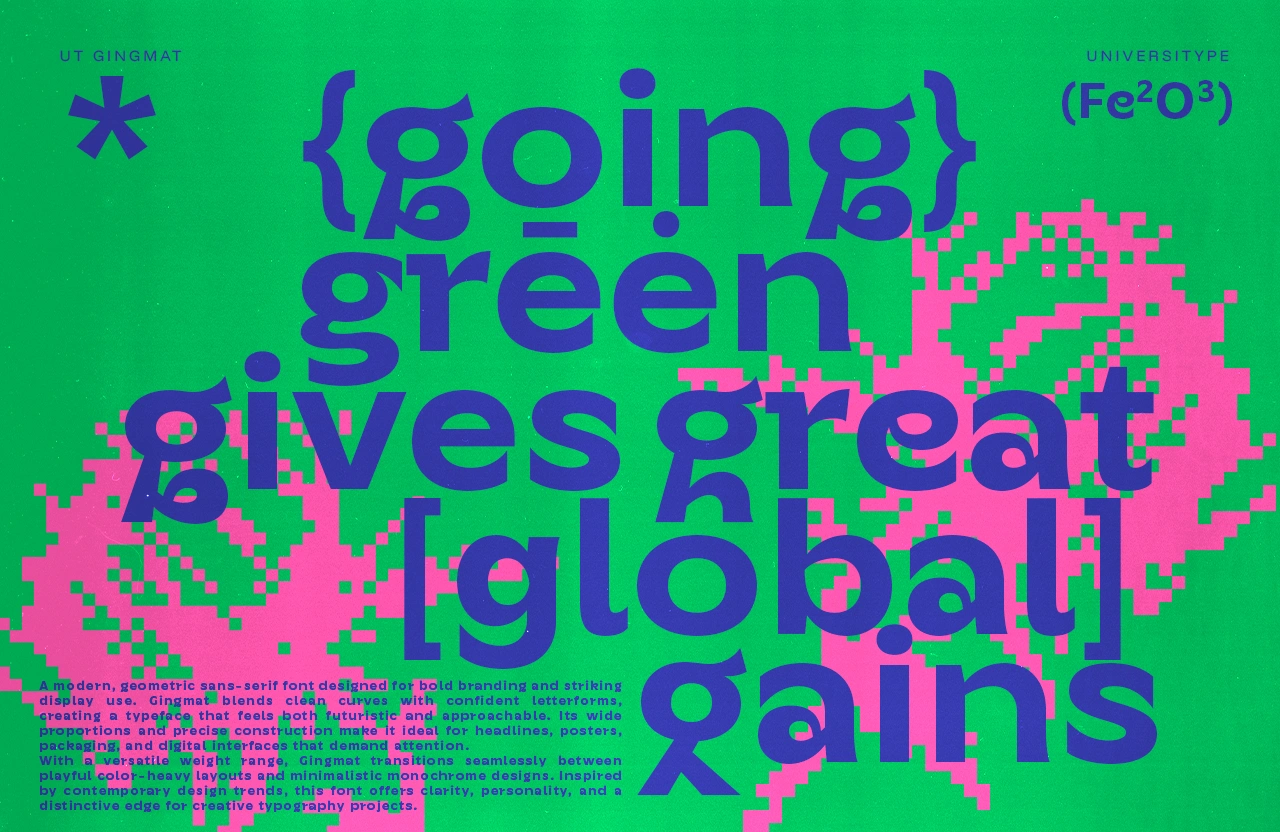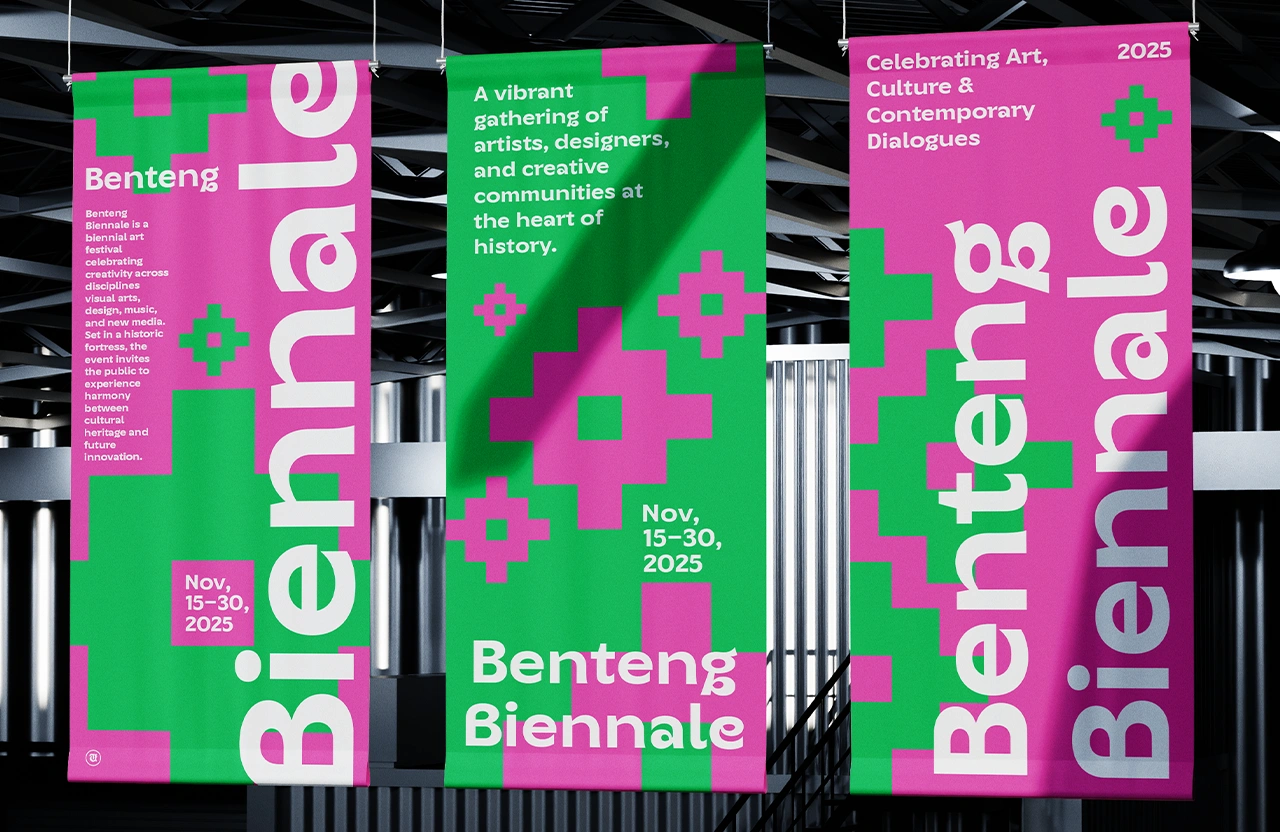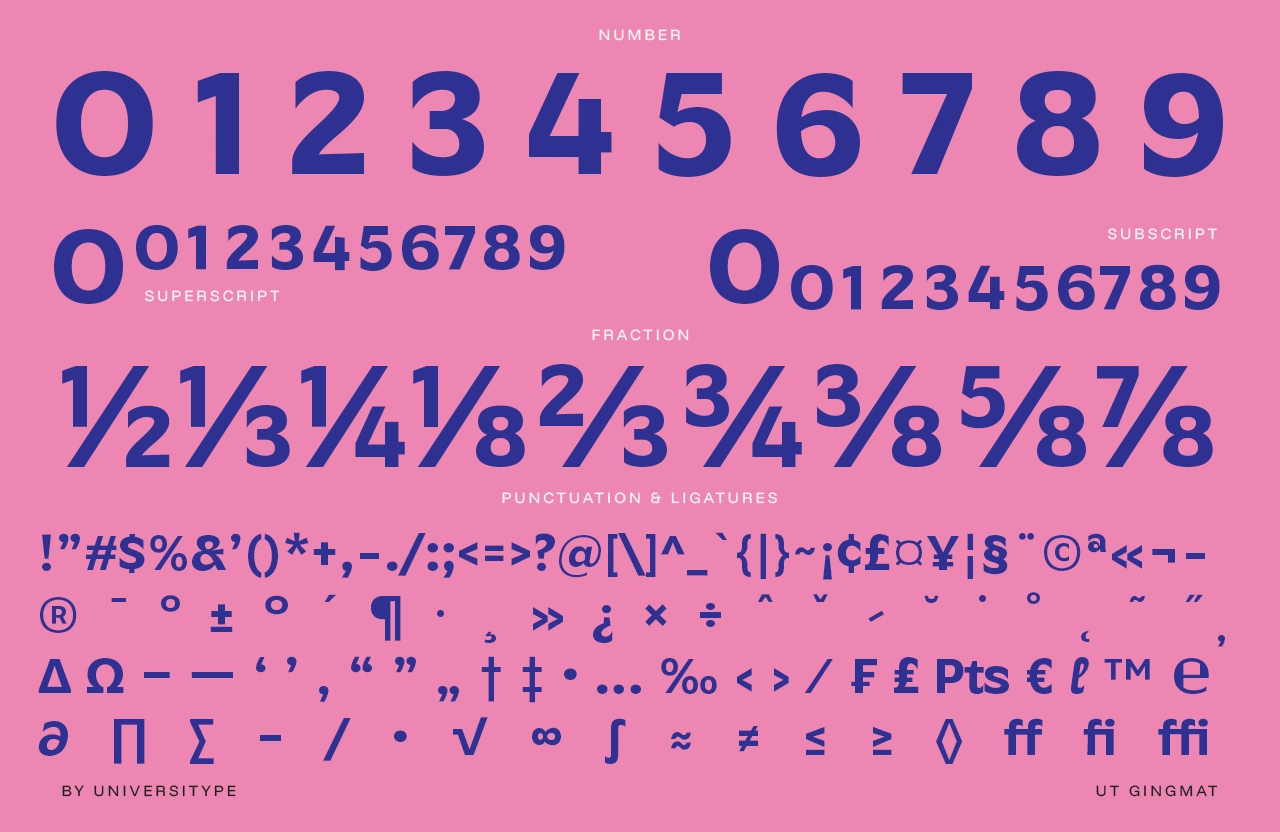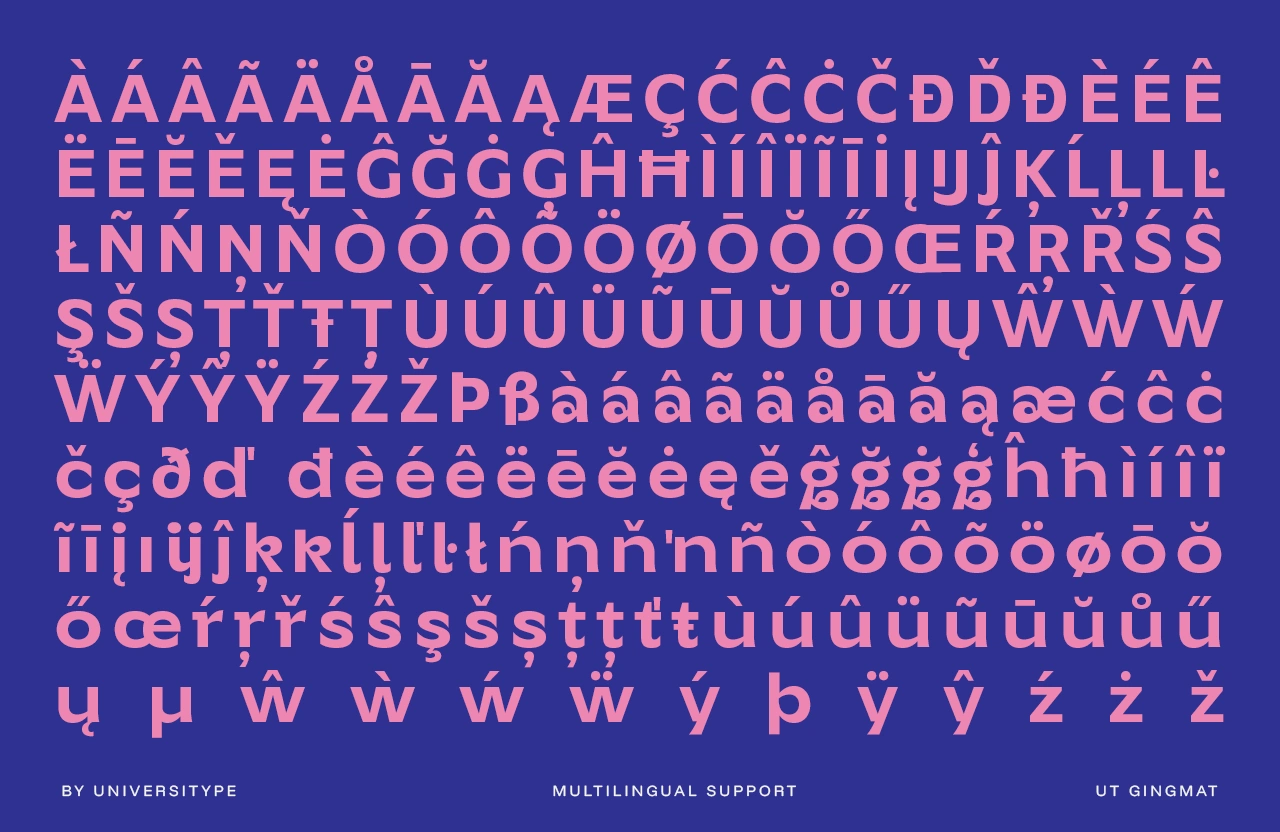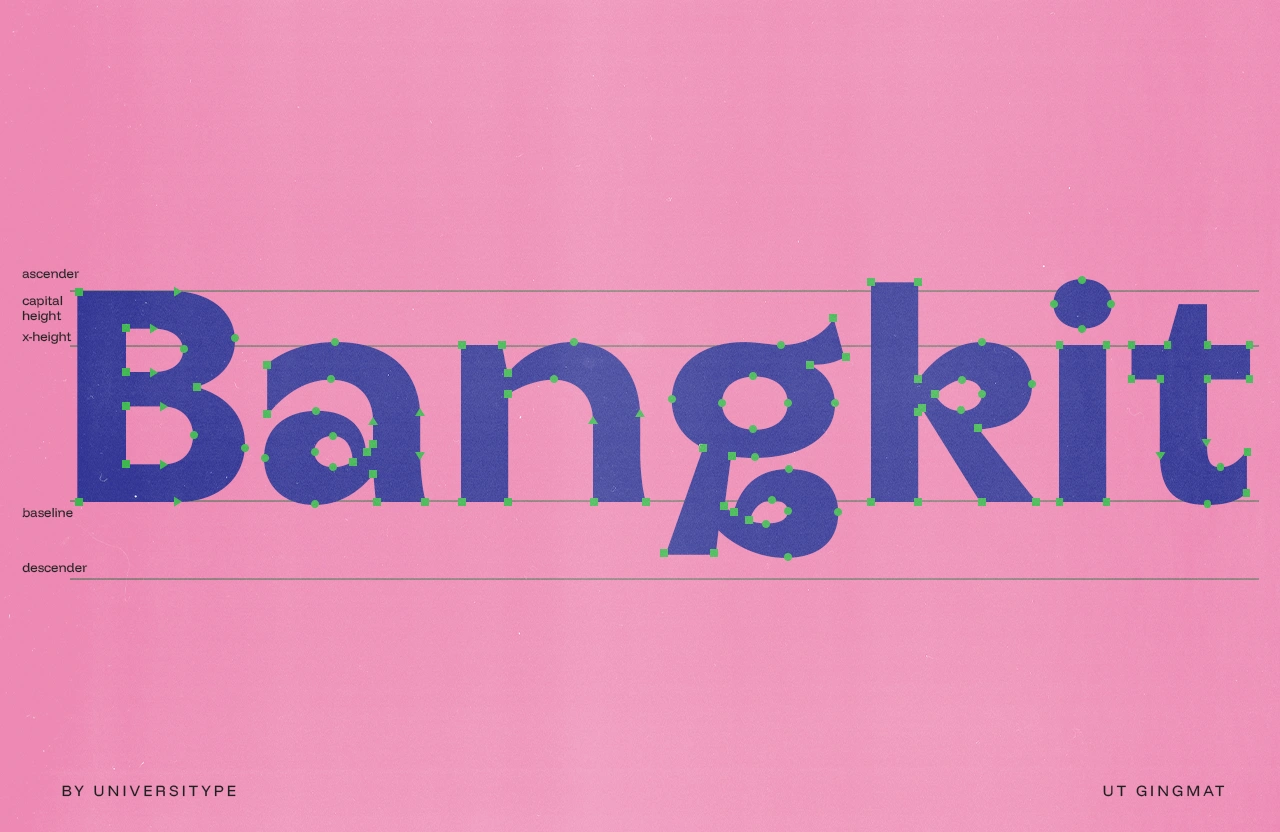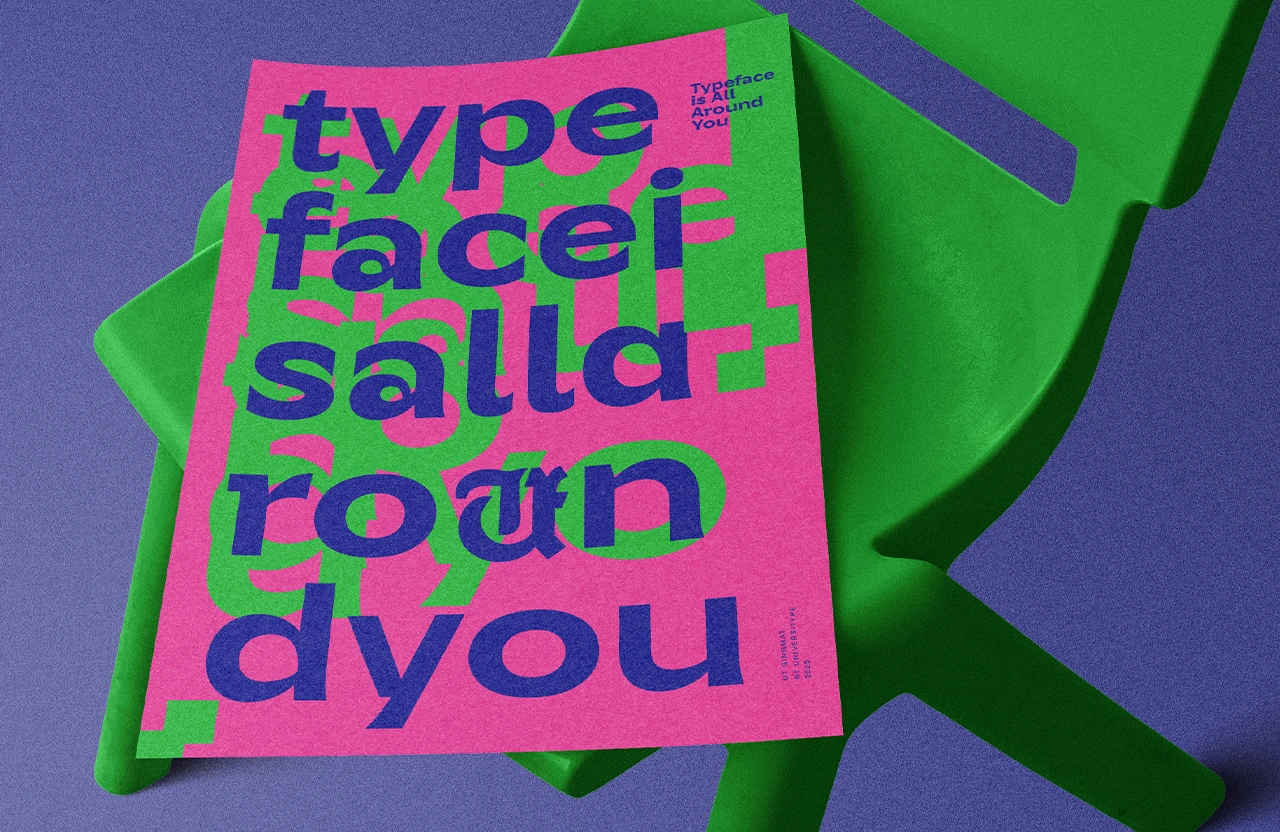
UT Gingmat is a modern, geometric sans-serif font crafted to turn heads and make a statement. With its bold curves and playful details, it bridges the gap between futuristic sharpness and approachable friendliness. Designed for branding, posters, digital interfaces, and any project that demands attention, Gingmat delivers clarity with personality.
Perfect for designers, creatives, and brands who want typography that feels bold, fresh, and unmistakably modern. From cultural events to startups, fashion labels to tech platforms, Gingmat adapts seamlessly to projects that need a stylish edge.
Bold, geometric sans-serif with unique personality
Clean letterforms with playful character shapes
Optimized for both print and digital design
Works beautifully in large-scale applications like posters, banners, and headlines
Supports versatile design aesthetics: bold color layouts, minimal monochrome designs, and digital branding
The design of UT Gingmat was inspired by the energy of contemporary urban culture—where tradition meets modern experimentation. Its geometric foundation ensures stability and precision, while its quirky detailing injects creativity and charm, echoing the balance between structure and play in today’s design world.
Branding & Logos: Make your mark with a bold, recognizable font
Event & Cultural Posters: Perfect for arts, music, and community-driven campaigns
Editorial Design: Headlines that stand out in magazines, flyers, or lookbooks
Digital Interfaces: Stylish typography for apps, websites, and social media visuals
Packaging Design: A striking choice for contemporary, youthful brands
Full uppercase & lowercase
Numerals & punctuation
Multilingual support
Geometric alignment for precise design balance